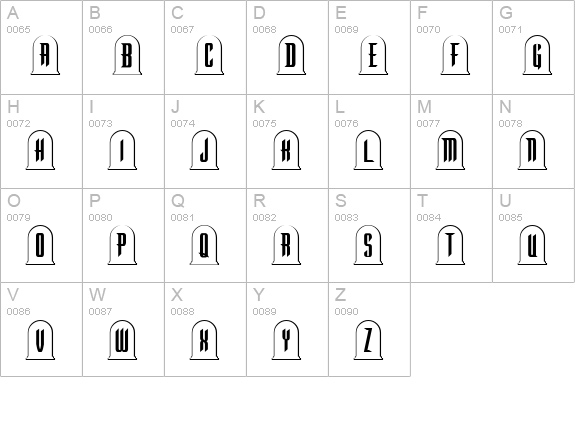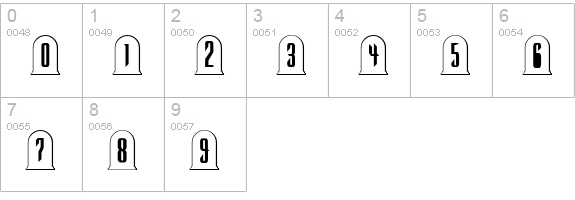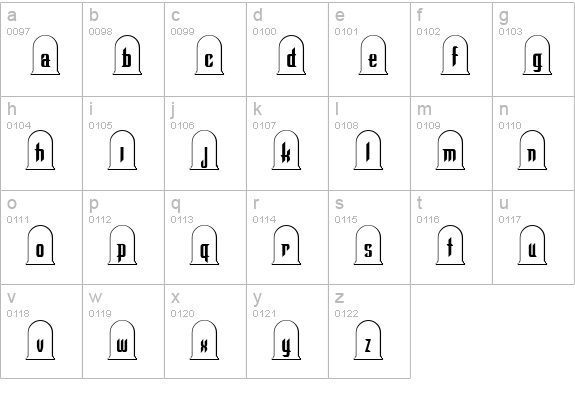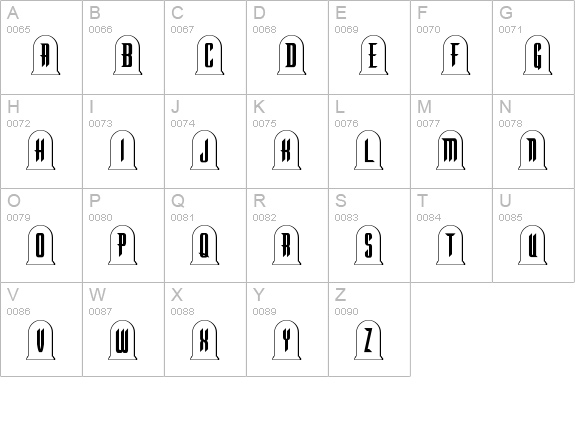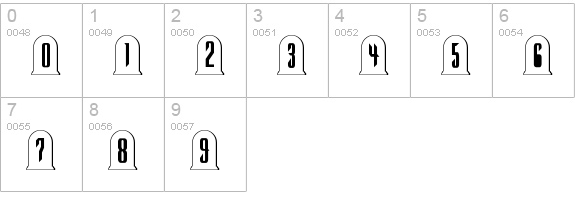
Graveyard Regular Font Details
Graveyard Regular is the standard, neutral variant in the Graveyard typeface family \xE2\x80\x94 well suited to general body text, paragraphs, and standard typographic work.
Graveyard Regular font is a hauntingly beautiful typeface that exudes an air of mystery and elegance. Its intricate details and gothic-inspired design make it perfect for adding a touch of sophistication to your projects. The sharp edges and delicate curves of this font create a captivating visual appeal that is sure to make a statement. Whether you are working on a spooky Halloween design, a gothic-themed project, or simply want to add a touch of darkness to your creations, Graveyard Regular font is the perfect choice. Its versatility allows you to use it for a wide range of projects, from posters and invitations to logos and branding. Best of all, Graveyard Regular font is available for free download at FontsMarket.com. This means that you can easily access this stunning font and incorporate it into your designs without any cost. Don't miss out on the opportunity to add a touch of dark elegance to your projects with Graveyard Regular font. Download it today and unleash your creativity!